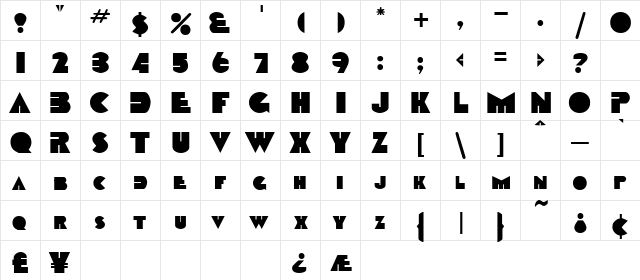
Garret Regular Font Preview
Garret Regular
Design Context for Garret Typeface
Garret is a composed and adaptable typeface that performs quietly and consistently across a wide range of design contexts.